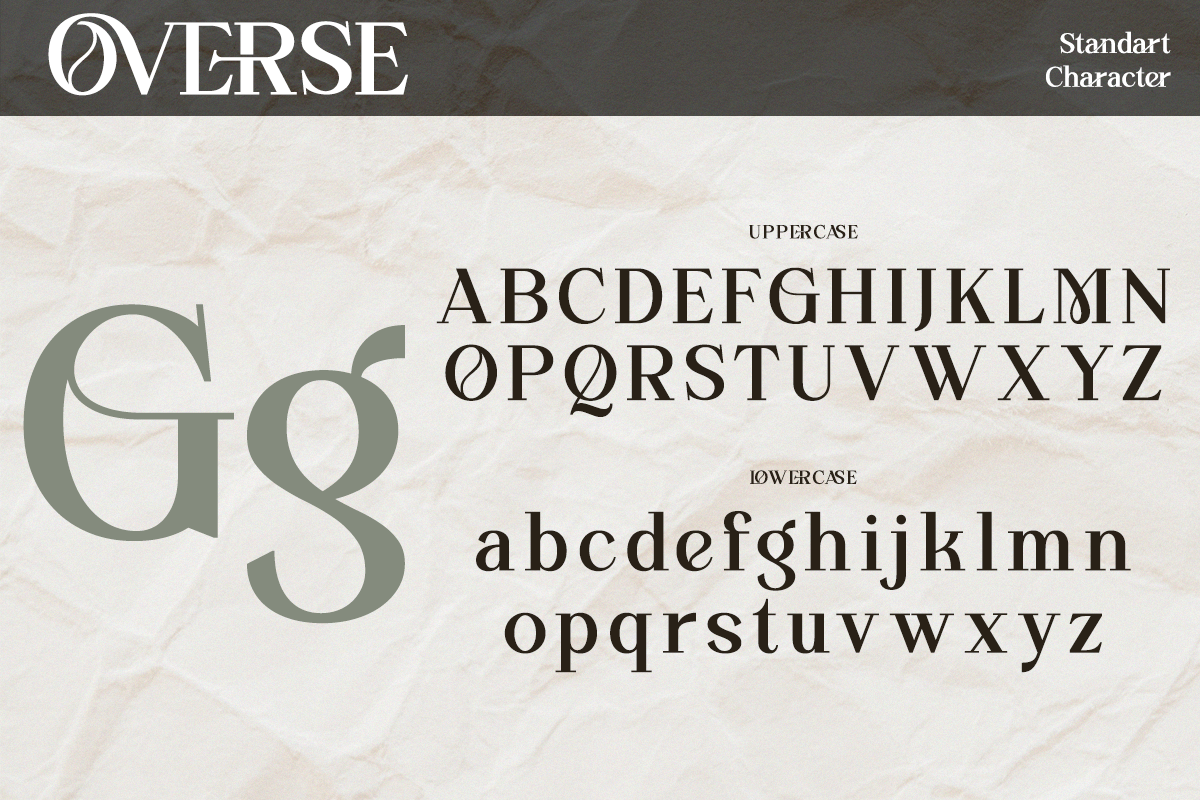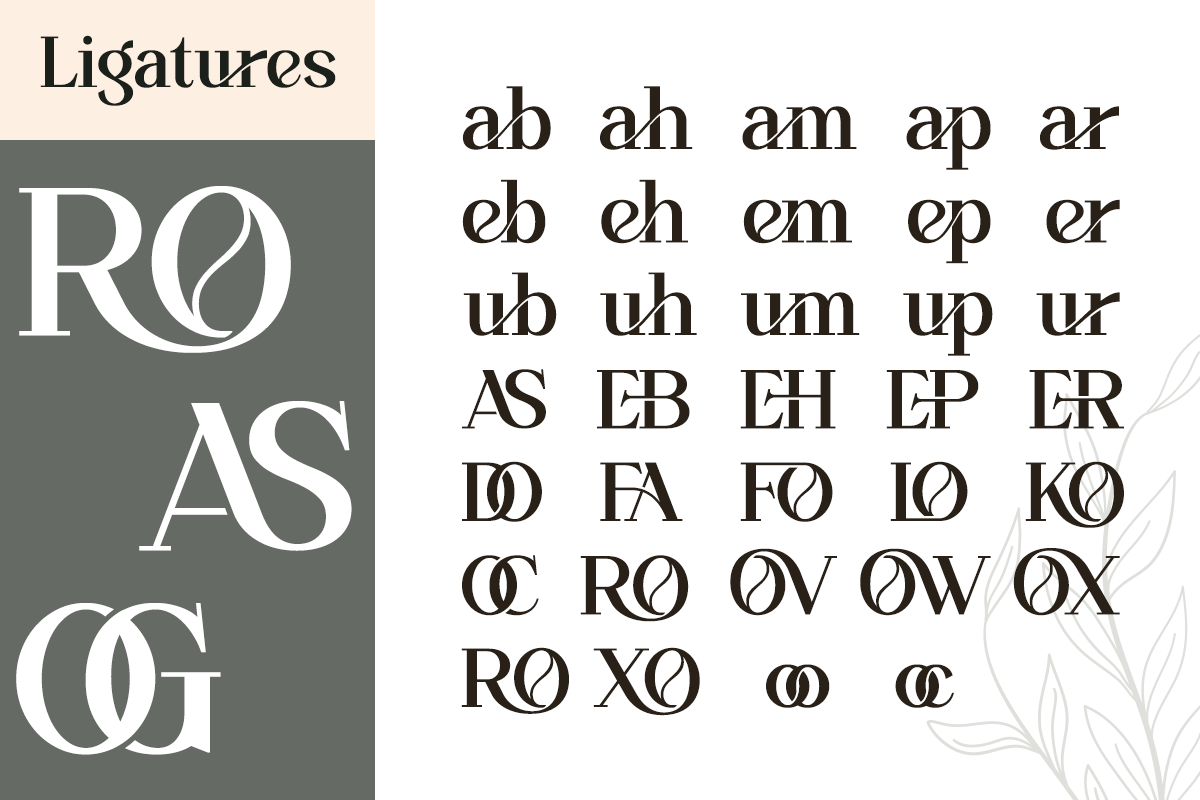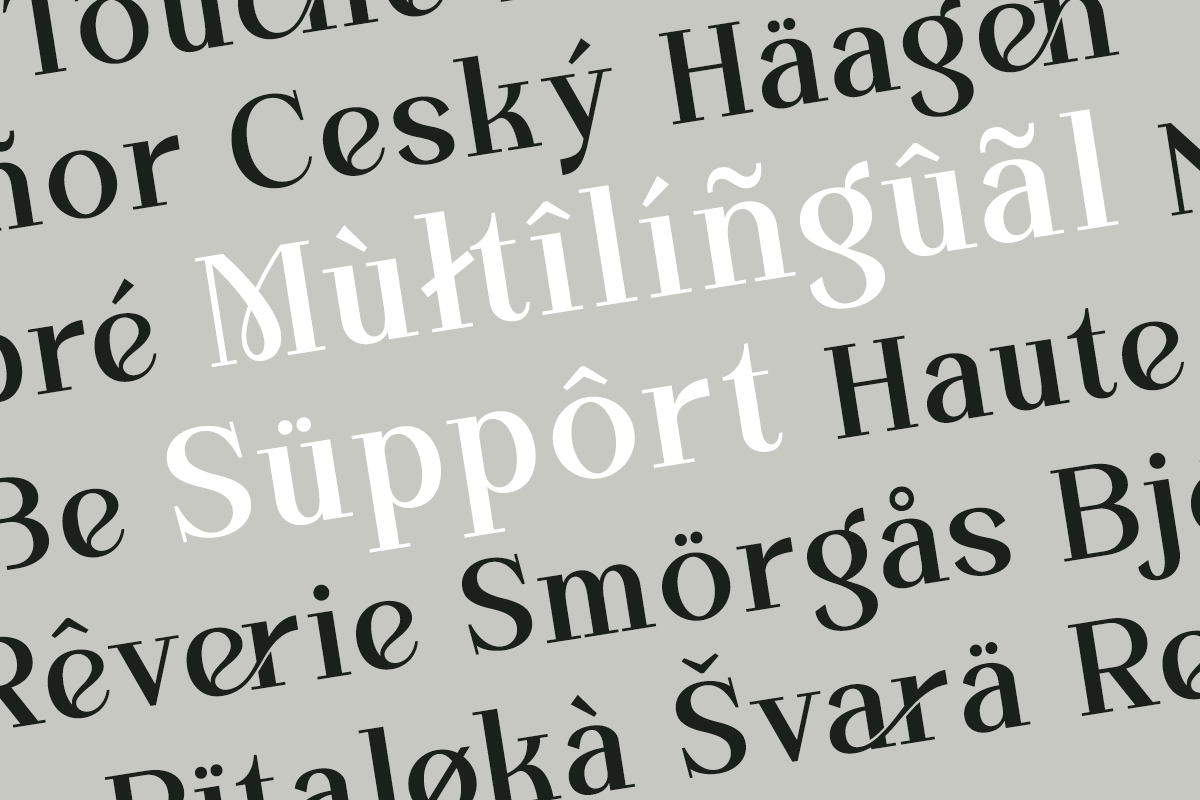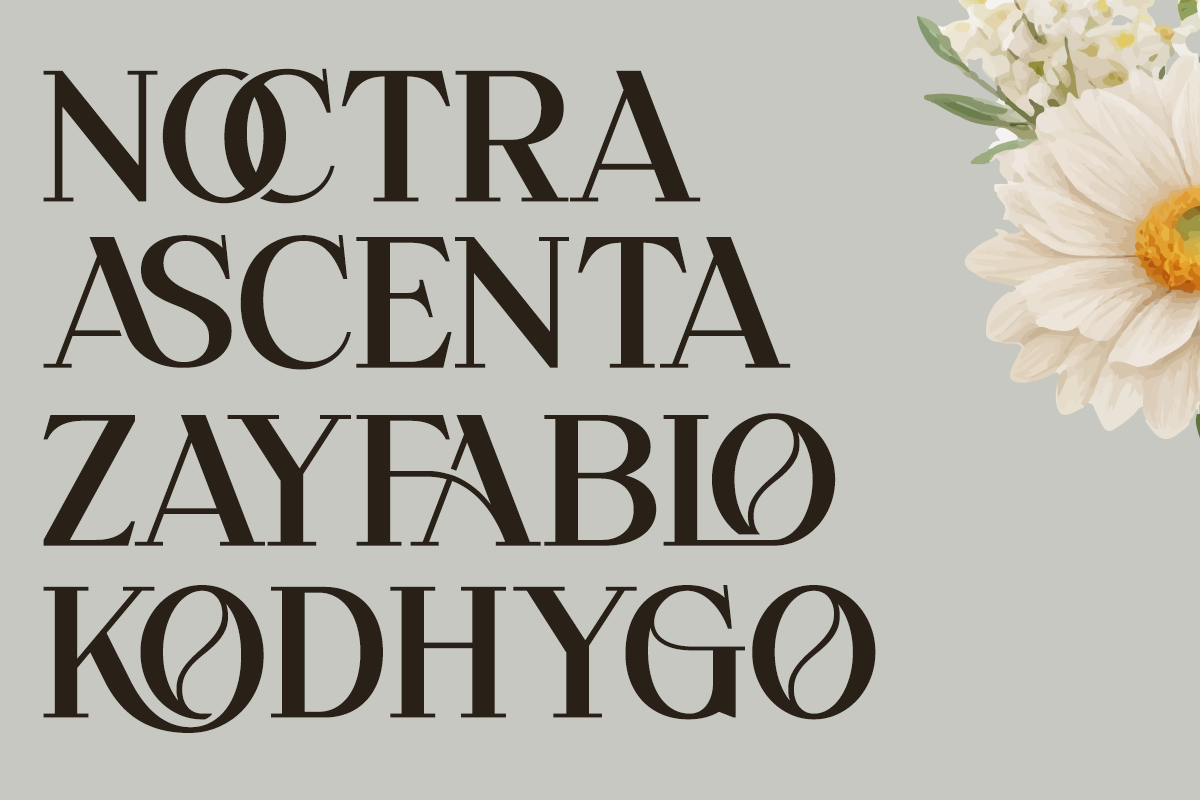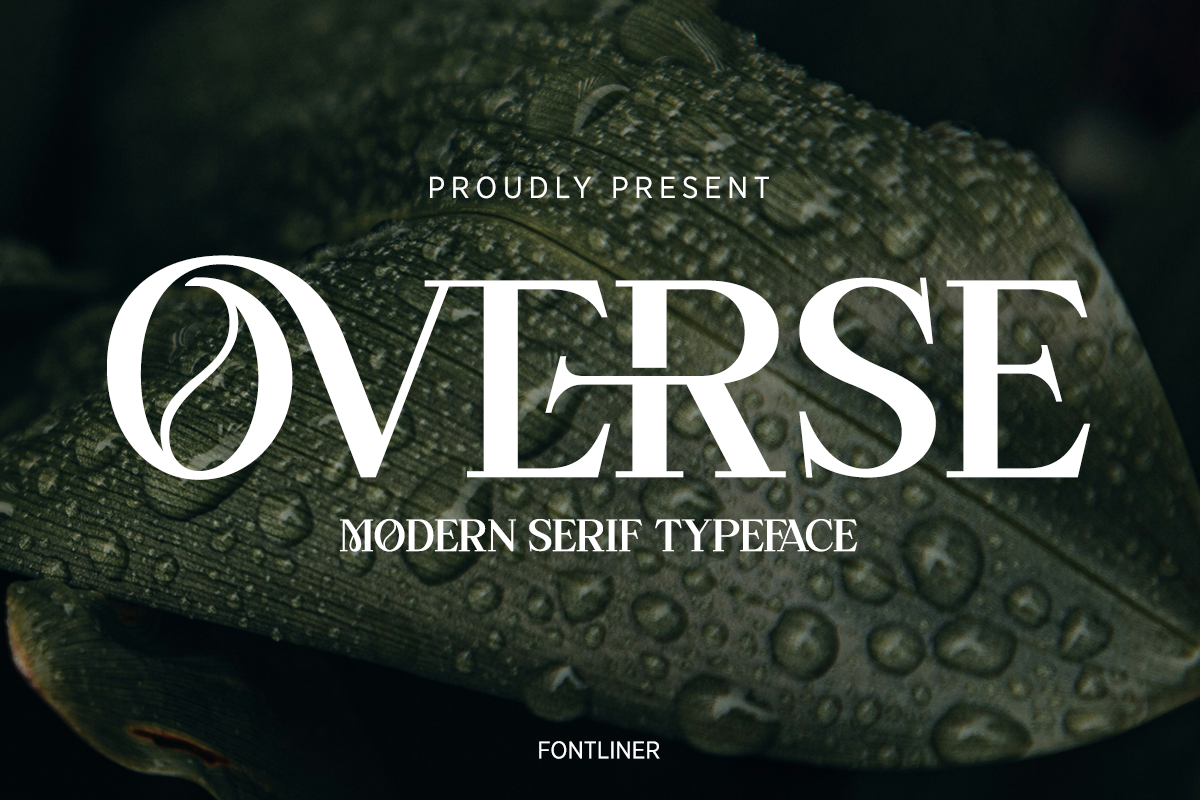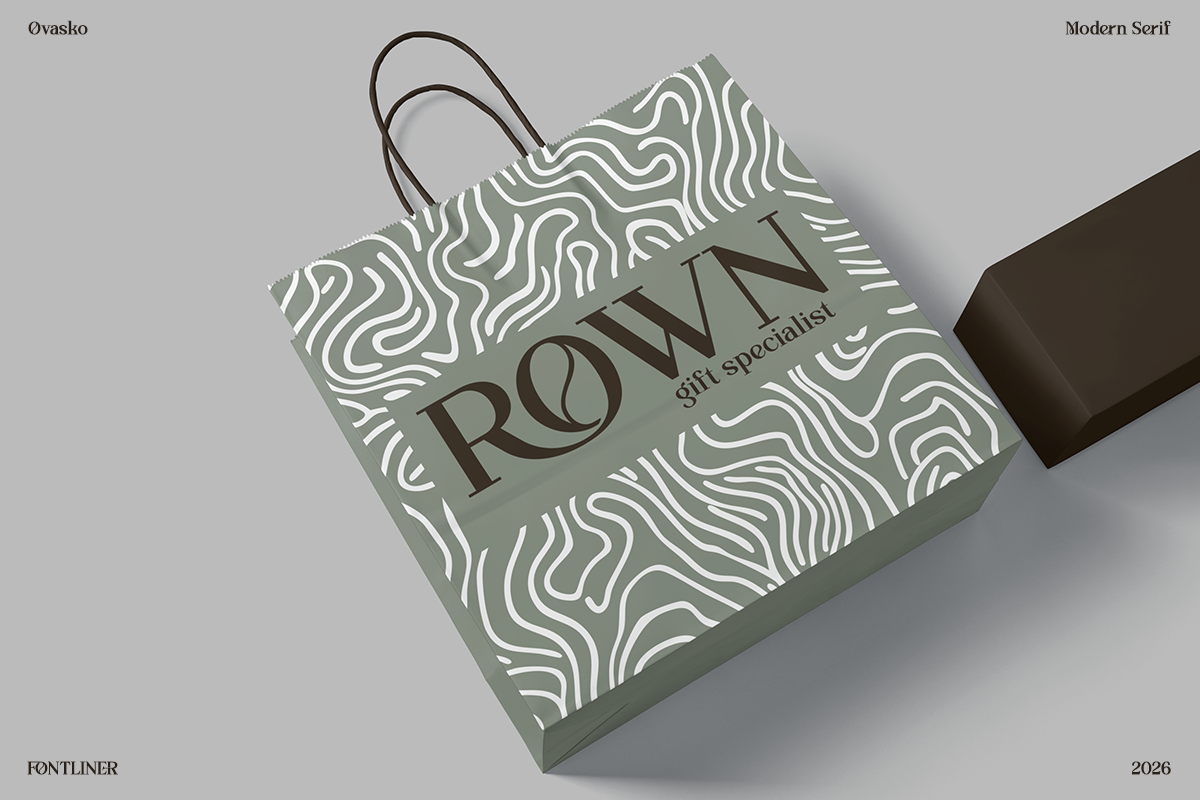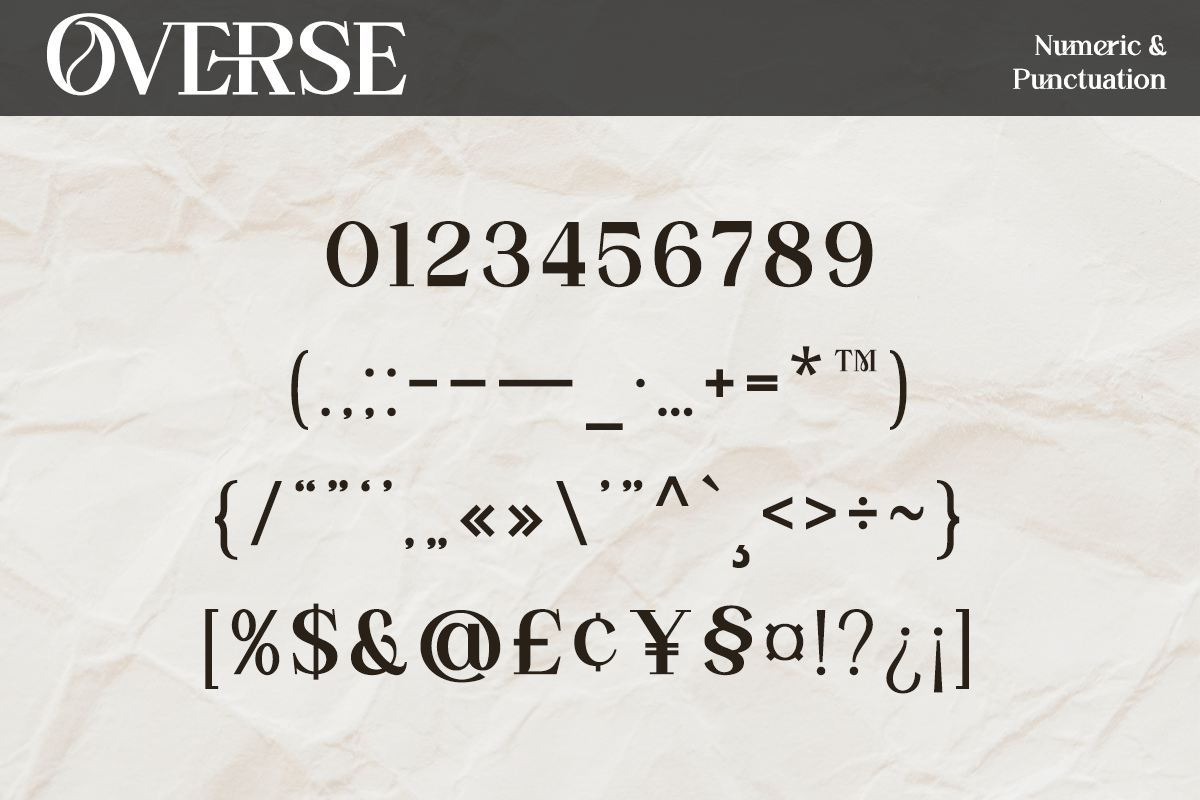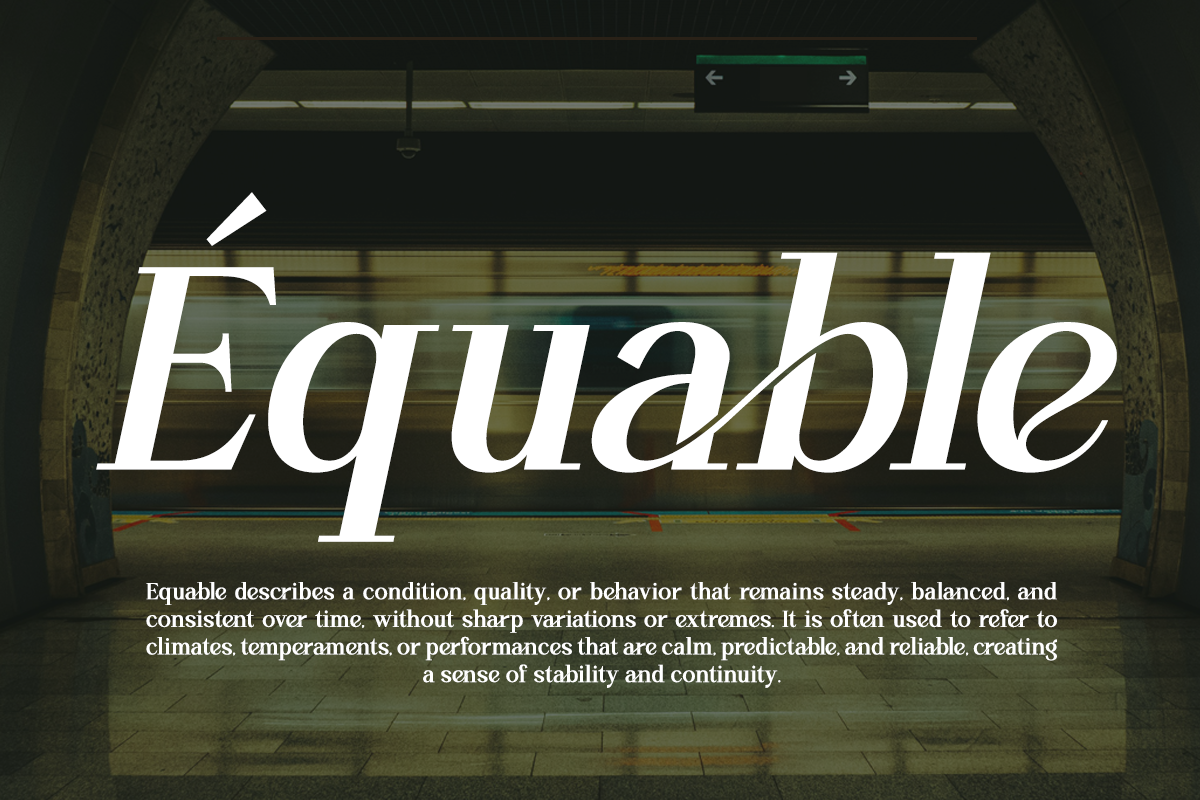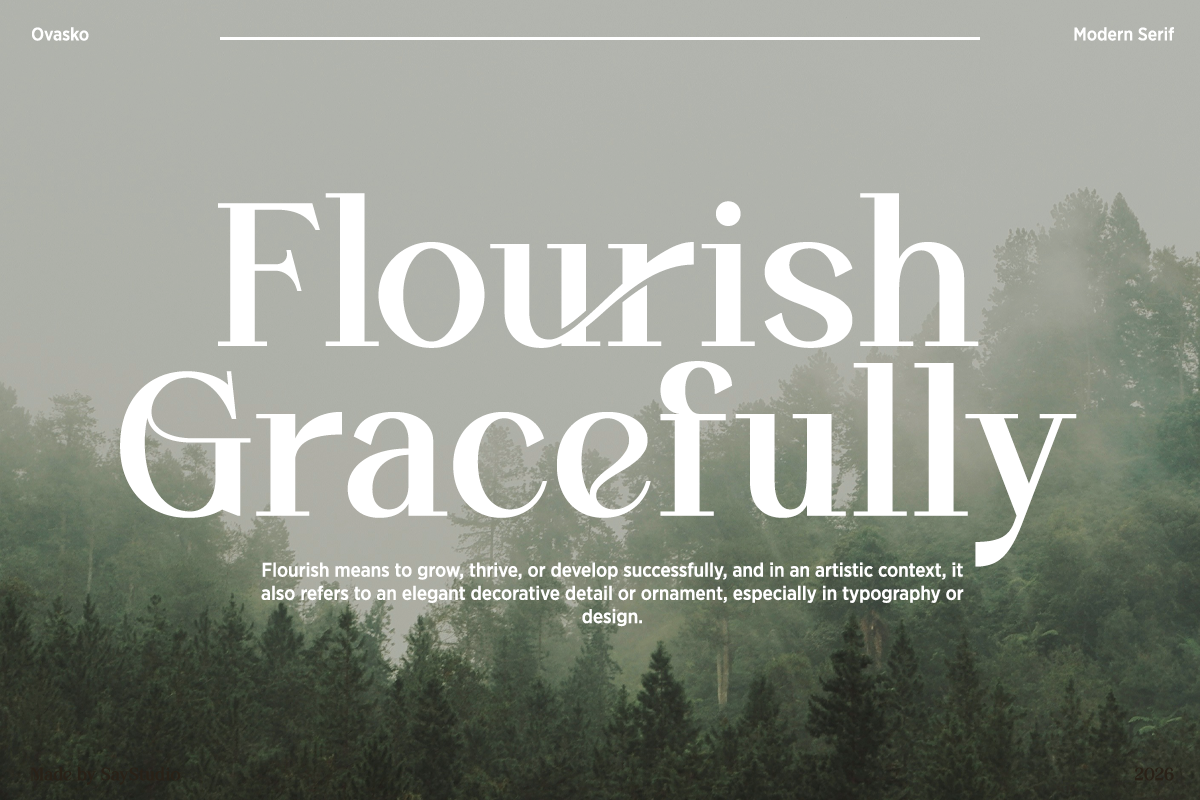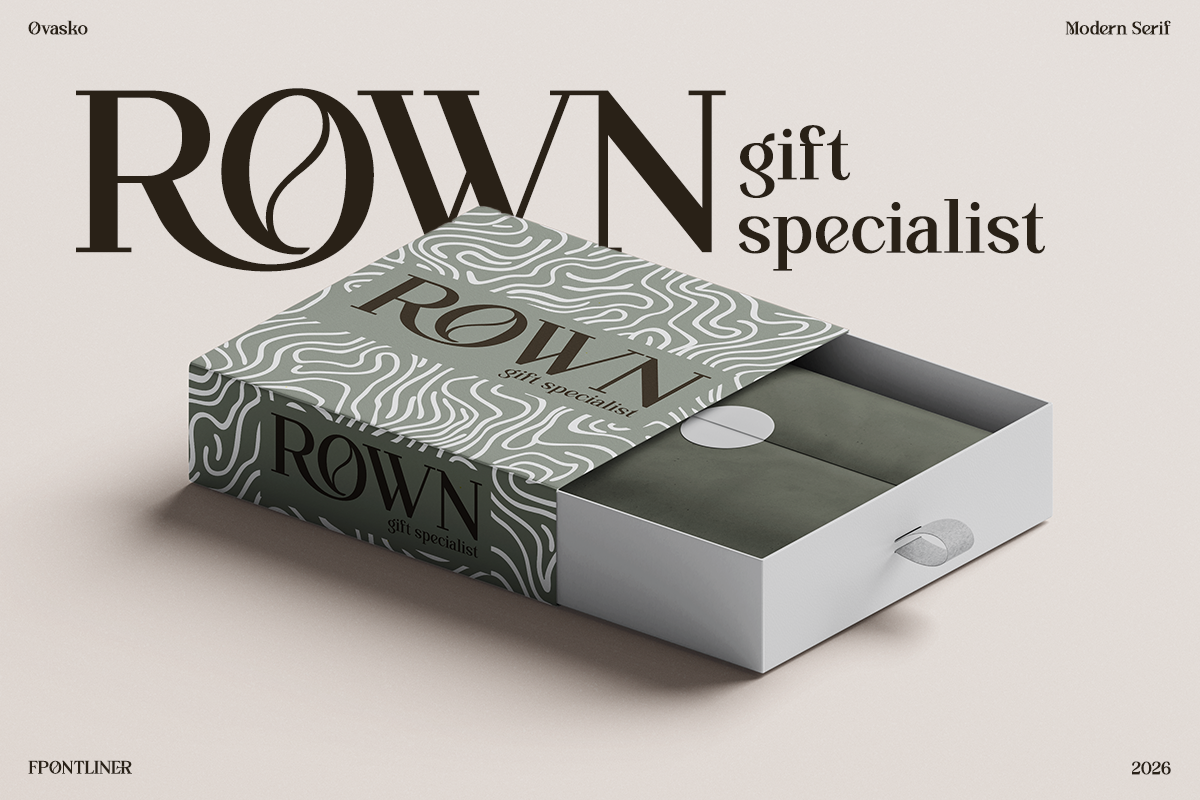
Overse - Modern Serif Typeface
OVERSE is a modern serif typeface crafted to deliver elegance, clarity, and strong visual presence. Inspired by contemporary editorial design and refined branding aesthetics, OVERSE blends sharp serif details with balanced proportions, making it ideal for high-end creative projects that demand sophistication and confidence.
Designed with versatility in mind, OVERSE works seamlessly across logos, branding systems, magazine layouts, headlines, packaging, and luxury visual identities. Its clean structure and modern serif character ensure excellent readability while maintaining a distinctive, premium feel in both digital and print applications.
Whether you are building a fashion brand, editorial layout, corporate identity, or premium marketing material, OVERSE provides a timeless yet modern typographic solution. This typeface is built to elevate your design and leave a lasting impression with a professional and polished tone.